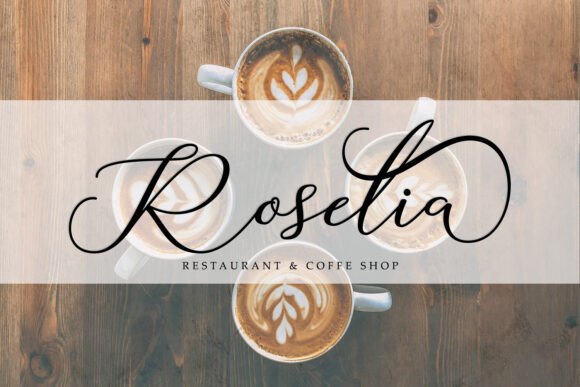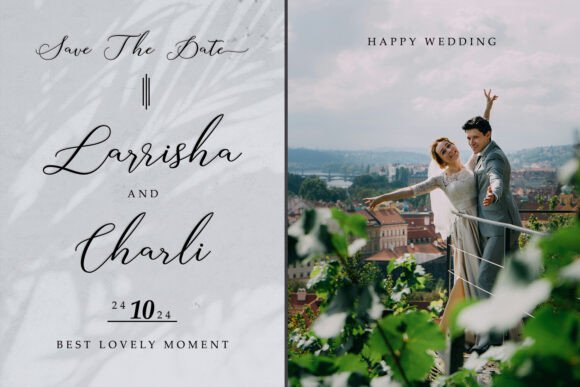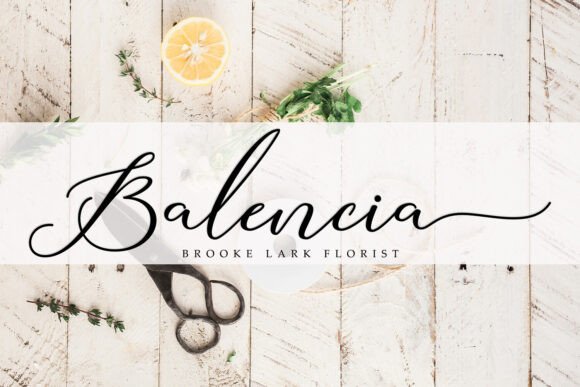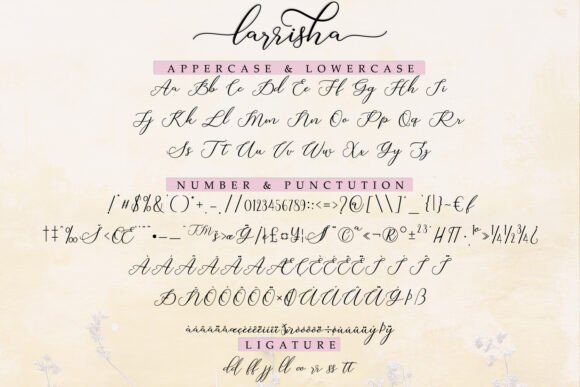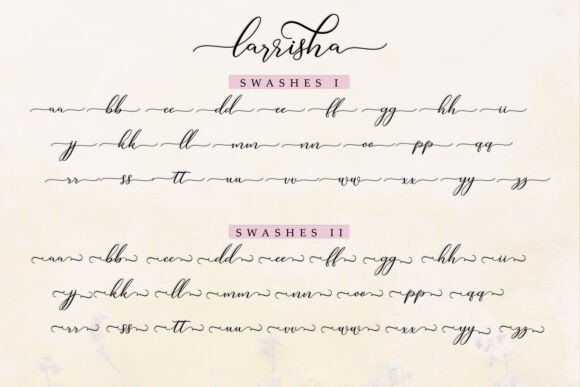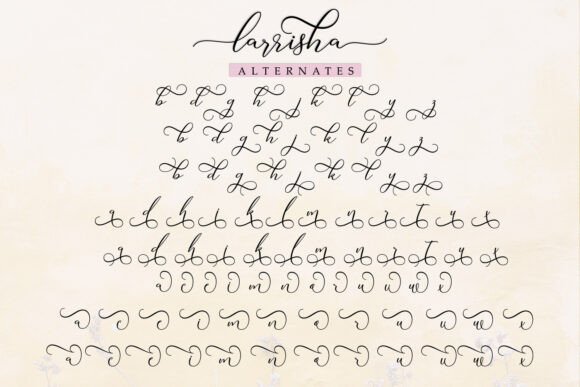
Introduction to Larrisha Font
Have you ever been working on a creative project and stumbled upon the perfect font that elevates your entire design? For designers, finding that one special font can be a game-changer. It’s the difference between a good design and a great one. Recently, I discovered the Larrisha Font, and I’m excited to share its beauty with you.
| 👤 Author | gianstudio12 |
With its fresh and modern script style, the Larrisha Font is a stunning addition to any design project. Its handmade calligraphy feel and decorative characters make it perfect for invitations, greeting cards, branding materials, business cards, quotes, posters, and more. The best part? This high-quality font is available for free download, complete with a transparent background, making it a valuable resource for designers.
Whether you’re working on a personal project or a client’s design, the Larrisha Font is sure to bring a touch of elegance and sophistication to your creative work.
Key Features of Larrisha Font
- High-quality font design with a unique, creative style, perfect for various design projects.
- Includes a range of glyphs and characters, making it suitable for both personal and commercial use.
- Designed with a high resolution, ensuring crisp and clear display on various devices and screens.
- Perfect for use in creative projects, such as graphic design, digital art, and typography-based designs.
Honest Review: Larrisha Font
I recently stumbled upon the Larrisha Font, and I must say it’s a great addition to my design arsenal. This high quality font is available for a free download, making it an excellent resource for designers working on a creative project.
What works well about the Larrisha Font is its versatility. It comes in a range of styles, from bold and playful to elegant and sophisticated, making it suitable for a variety of design projects. The font also features a transparent background, which allows for easy integration with different design elements.
Some of the key features that I like about the Larrisha Font include:
- High quality design that is perfect for both digital and print projects
- Transparent background for easy integration with design elements
- Range of styles to suit different design needs
While the Larrisha Font is a great addition to my design resources, there are a few limitations to be aware of ⚠️. The font may not be suitable for all design projects, particularly those requiring a highly customized look. Additionally, the font’s range of styles may not be as extensive as some other fonts on the market.
Overall, I’m impressed with the Larrisha Font and would highly recommend it to designers looking for a high quality, free design resource. With its versatility and transparent background, it’s a great addition to any design project ✨.
Larrisha Font is perfect for creative projects such as wedding invitations, business cards, and social media graphics. Its high-quality design makes it a popular choice among designers.
Getting the Most Out of Larrisha Font